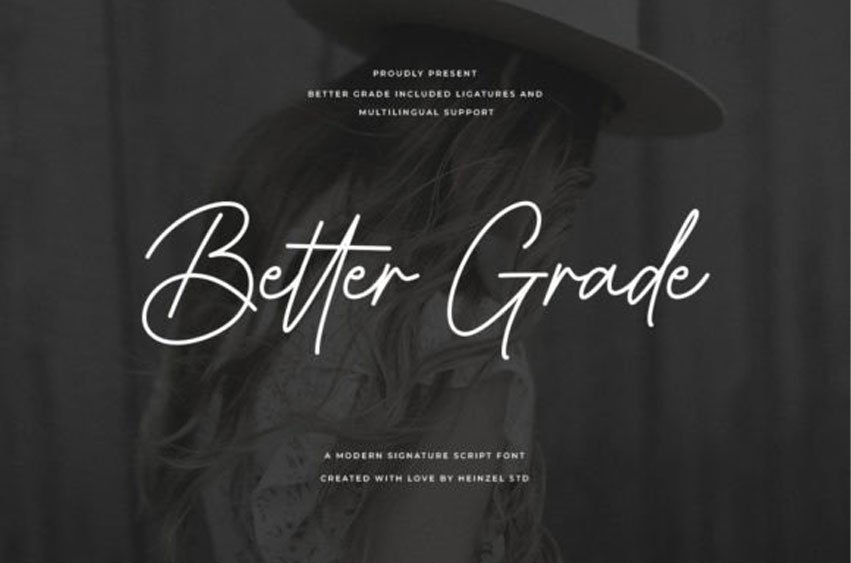
Better Grade Font is a thin and beautiful handwritten font, described by a refined touch.
Fall in love with its distinct and timeless style and use it to create spectacular designs!